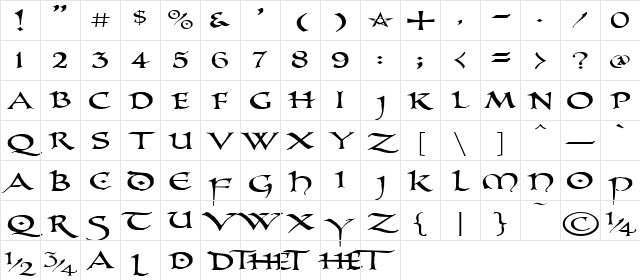
PR Uncial Alt Caps Extended Normal
Design Context for PR Uncial Alt Caps Extended
PR Uncial Alt Caps Extended is a composed and adaptable typeface that performs quietly and consistently across a wide range of design contexts.